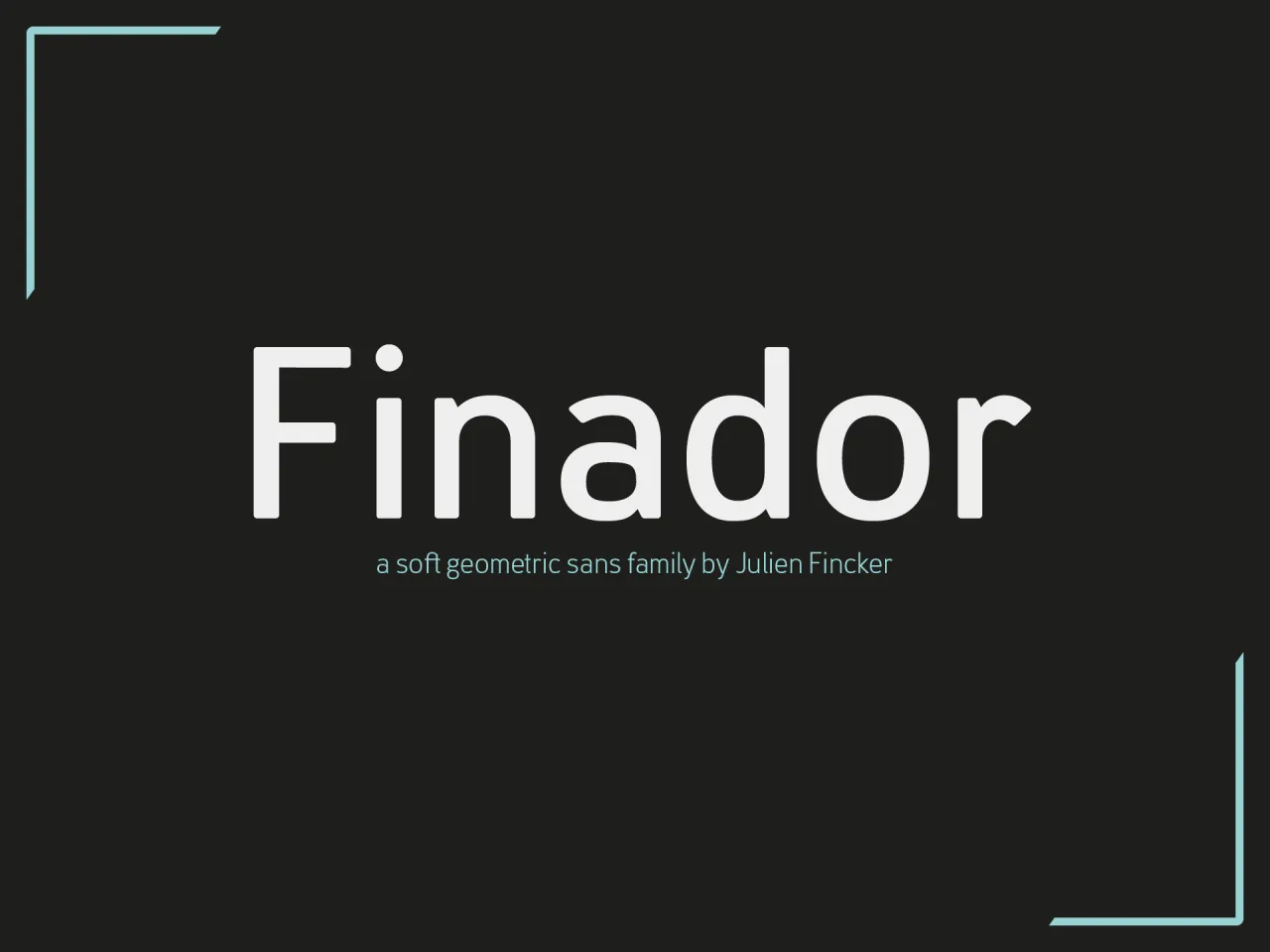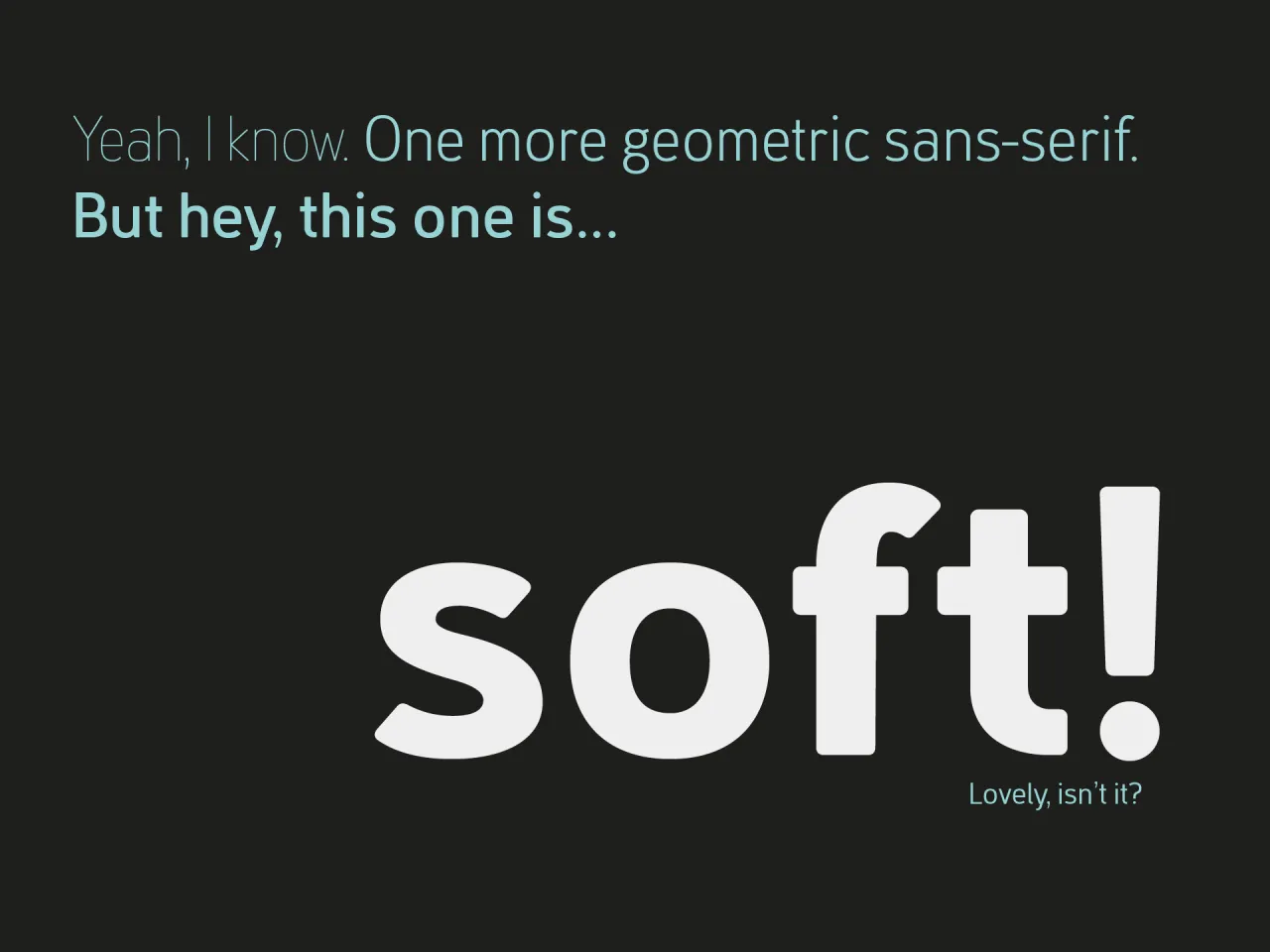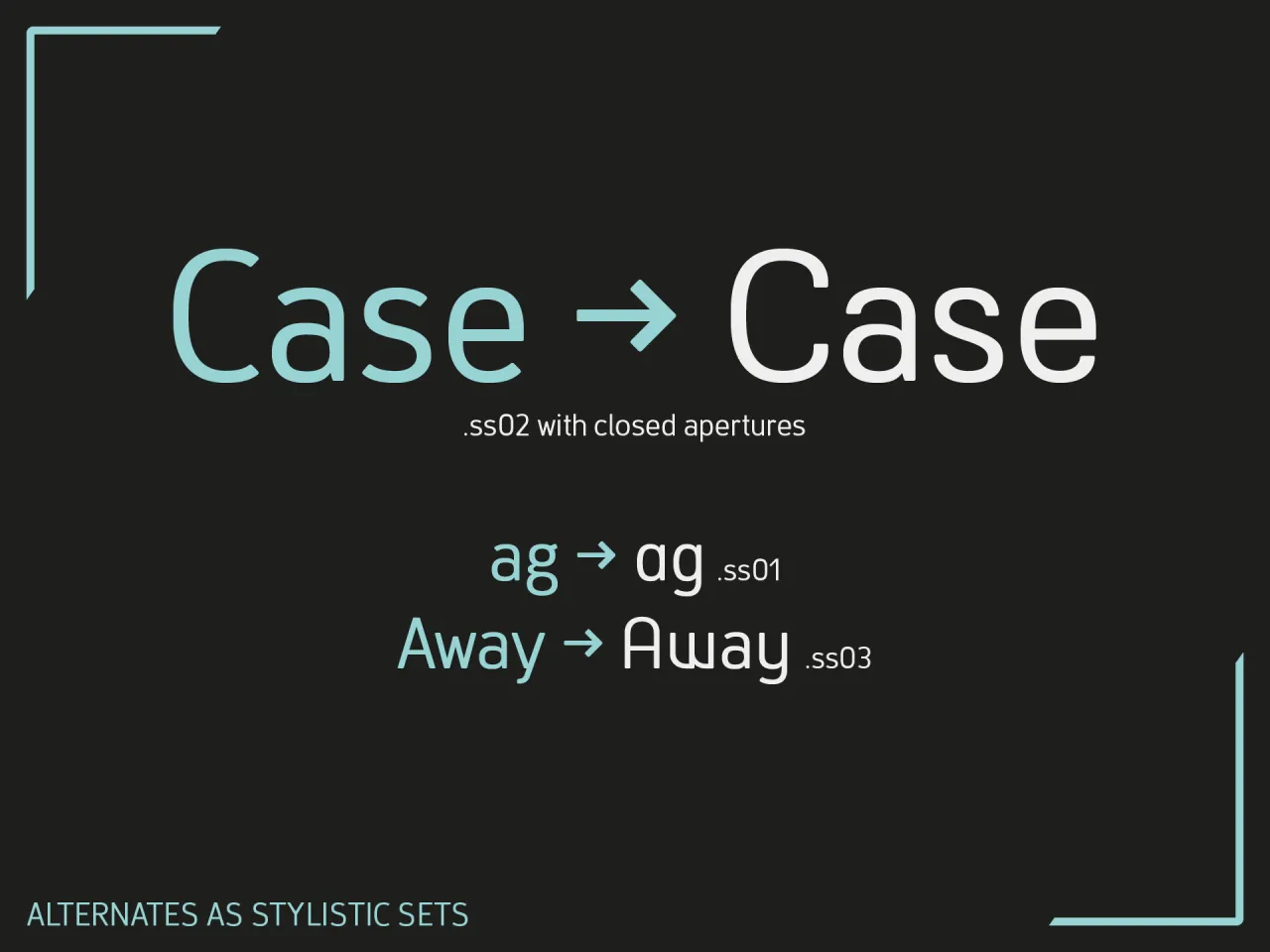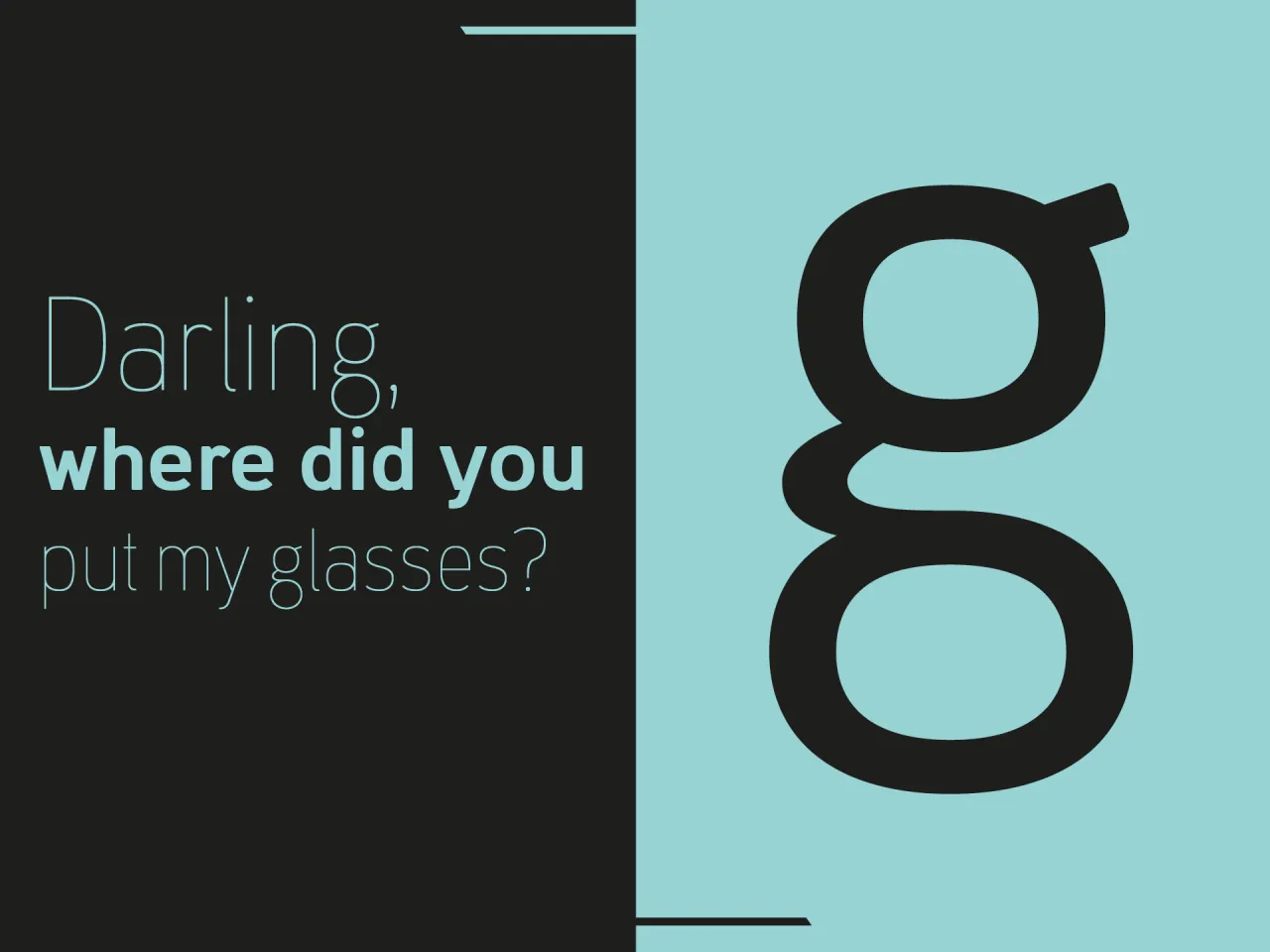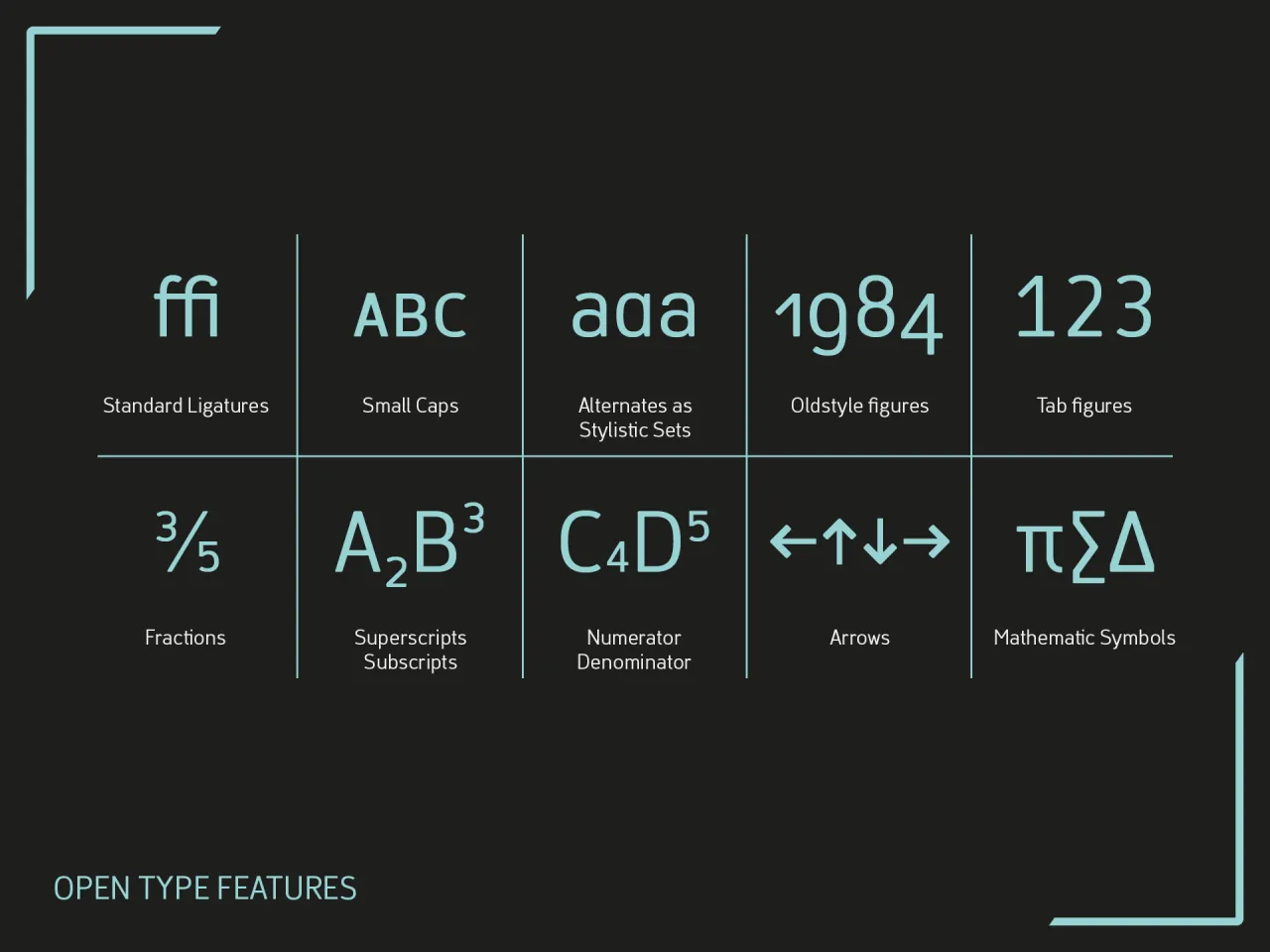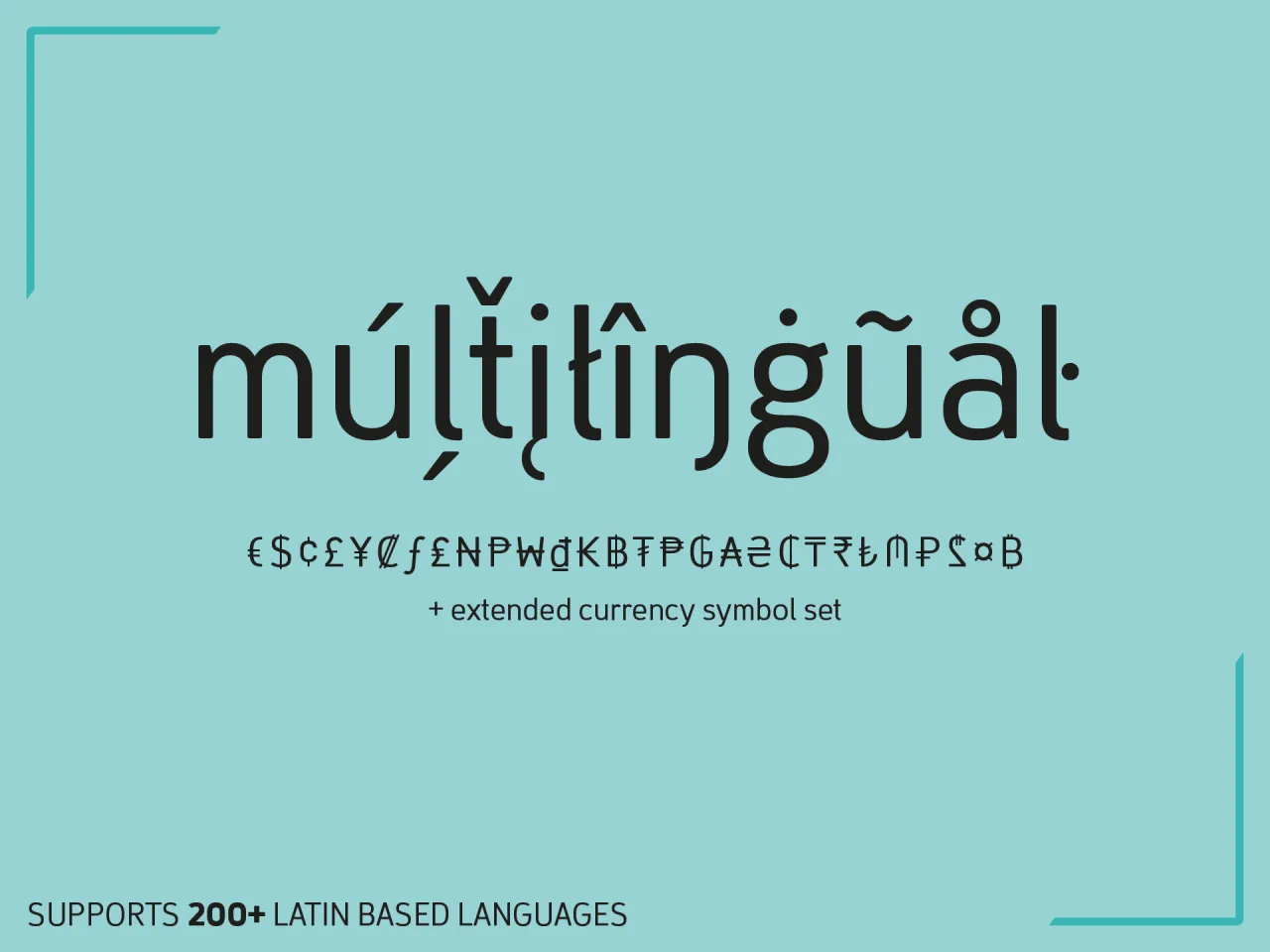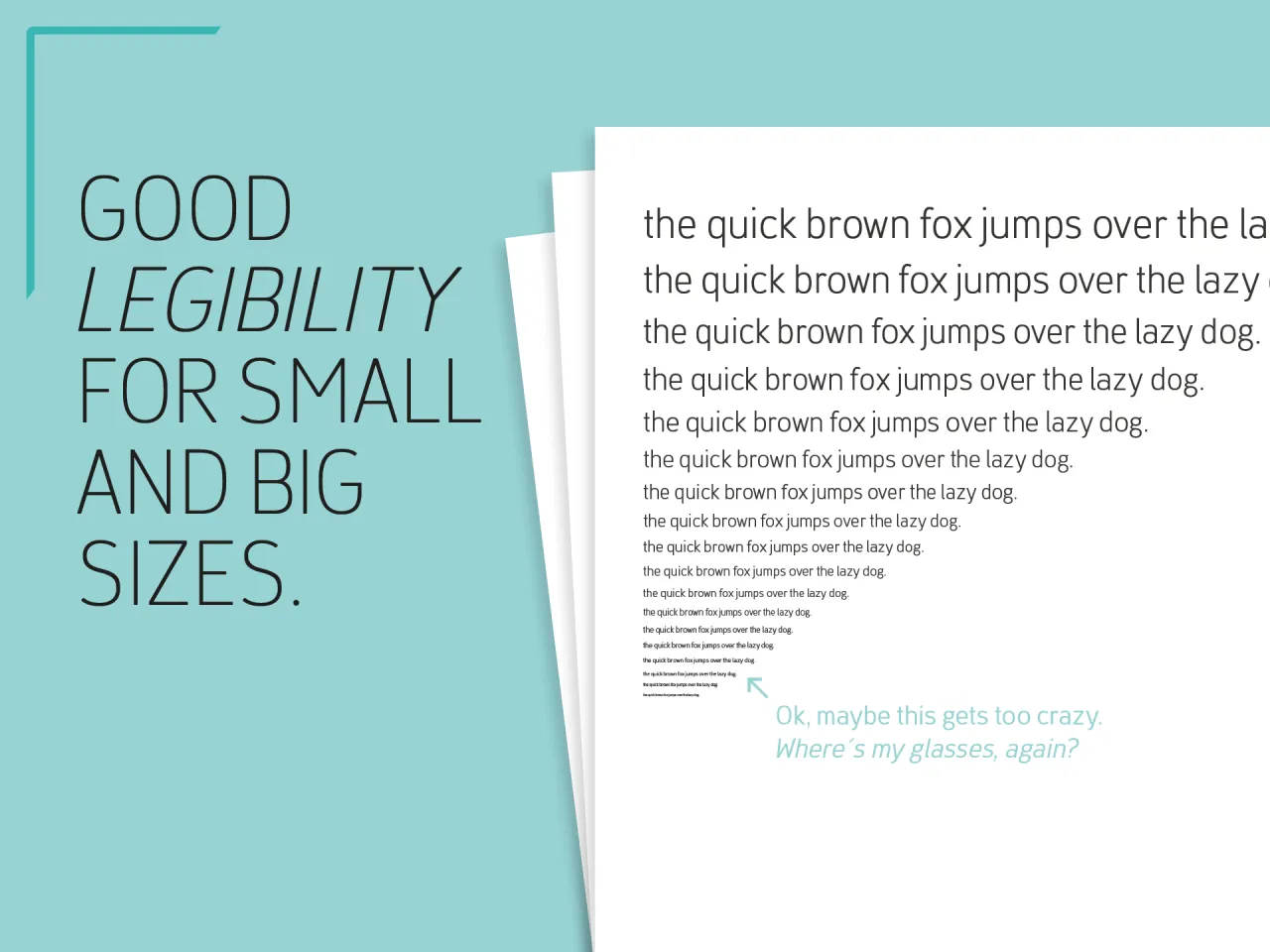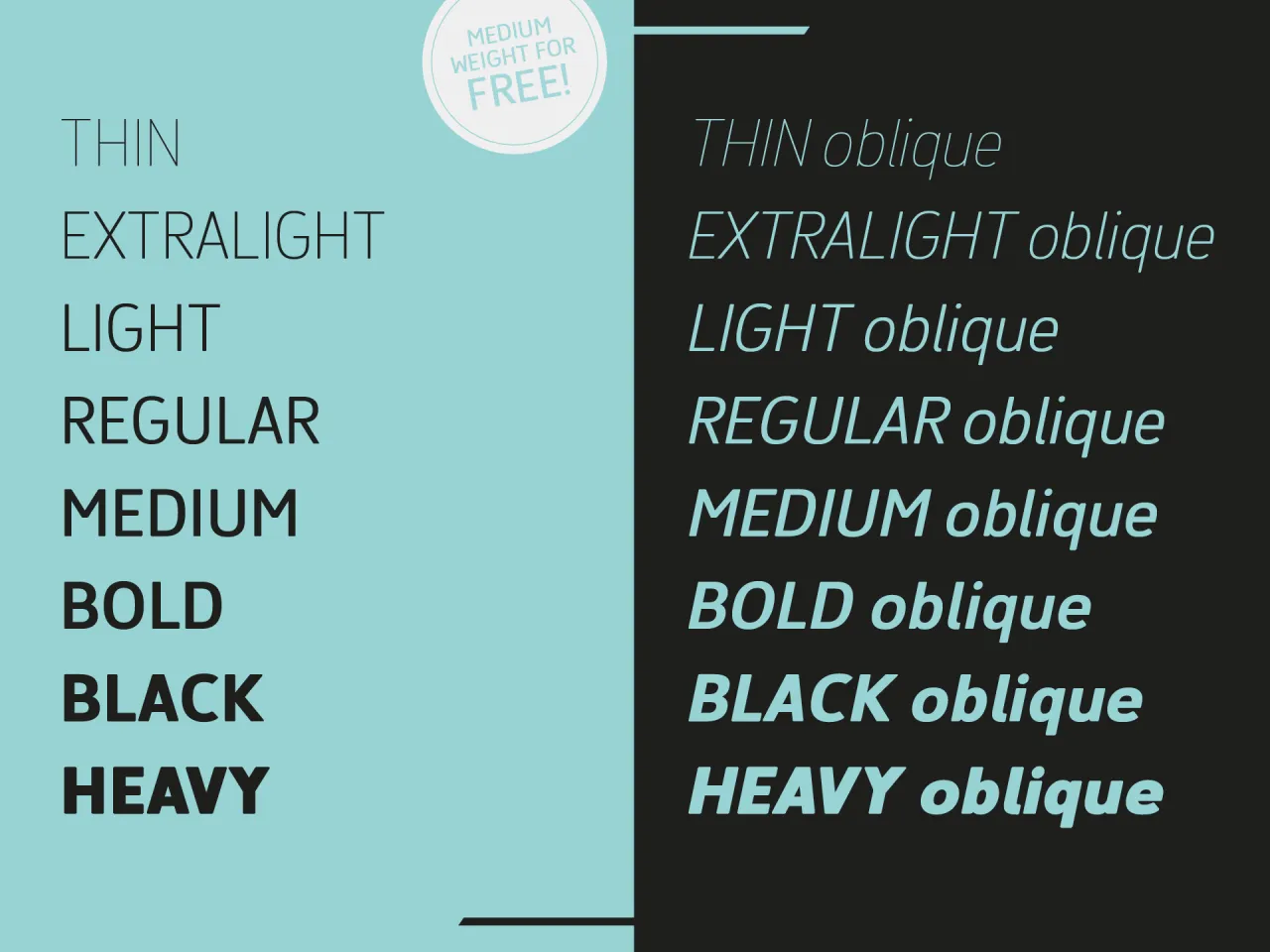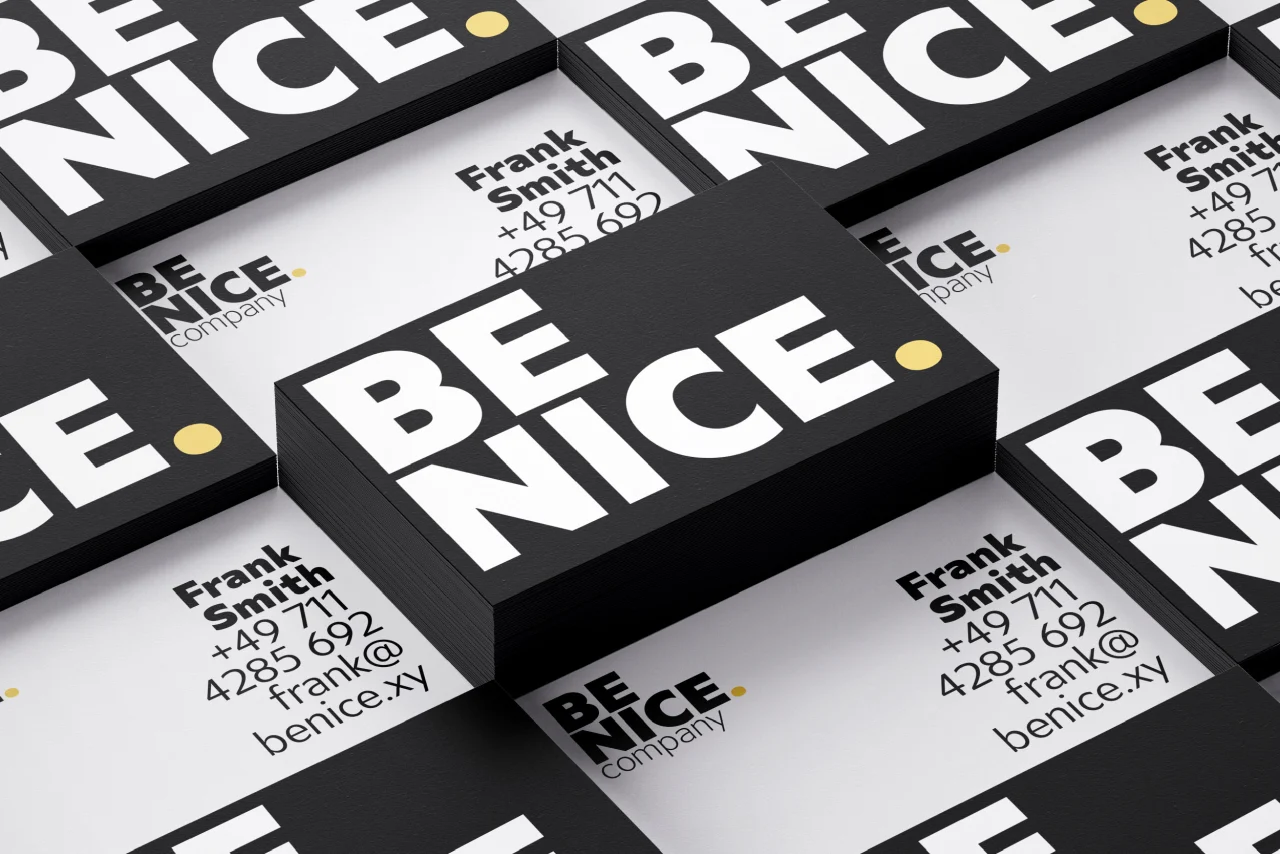
Finador: Julien Fincker's latest font family is modern, soft and geometric
Finador is a new modern, soft geometric sans font family, created by French designer Julien Fincker.
The functional style of the geometric sans has been softened by open apertures and rounded corners, making it functional and friendly.
While the default version has open, modern apertures, Stylistic Set 2 includes the whole set of letters with closed, classic apertures, offering a slightly different look. "It's like having a second font in just one font," explains Julien, "so it's up to you to choose the right look for your projects."
The Finador family includes 8 weights, from thin to heavy and their matching italics. With 900+ glyphs per style it supports over 200+ Latin-based languages, includes an extended currency symbol set and a lot of Open Type Features like small caps, ligatures, fractions, alternates and many more. The lightest and boldest weights are good for display usage, while the middleweights can also be used for body text.
As a versatile allrounder, Finador supports almost every one of your needs. It has the ability to become your next favourite workhorse family. Just give it a try. The Medium weight is free. Finador is available at MyFonts and Fontspring.